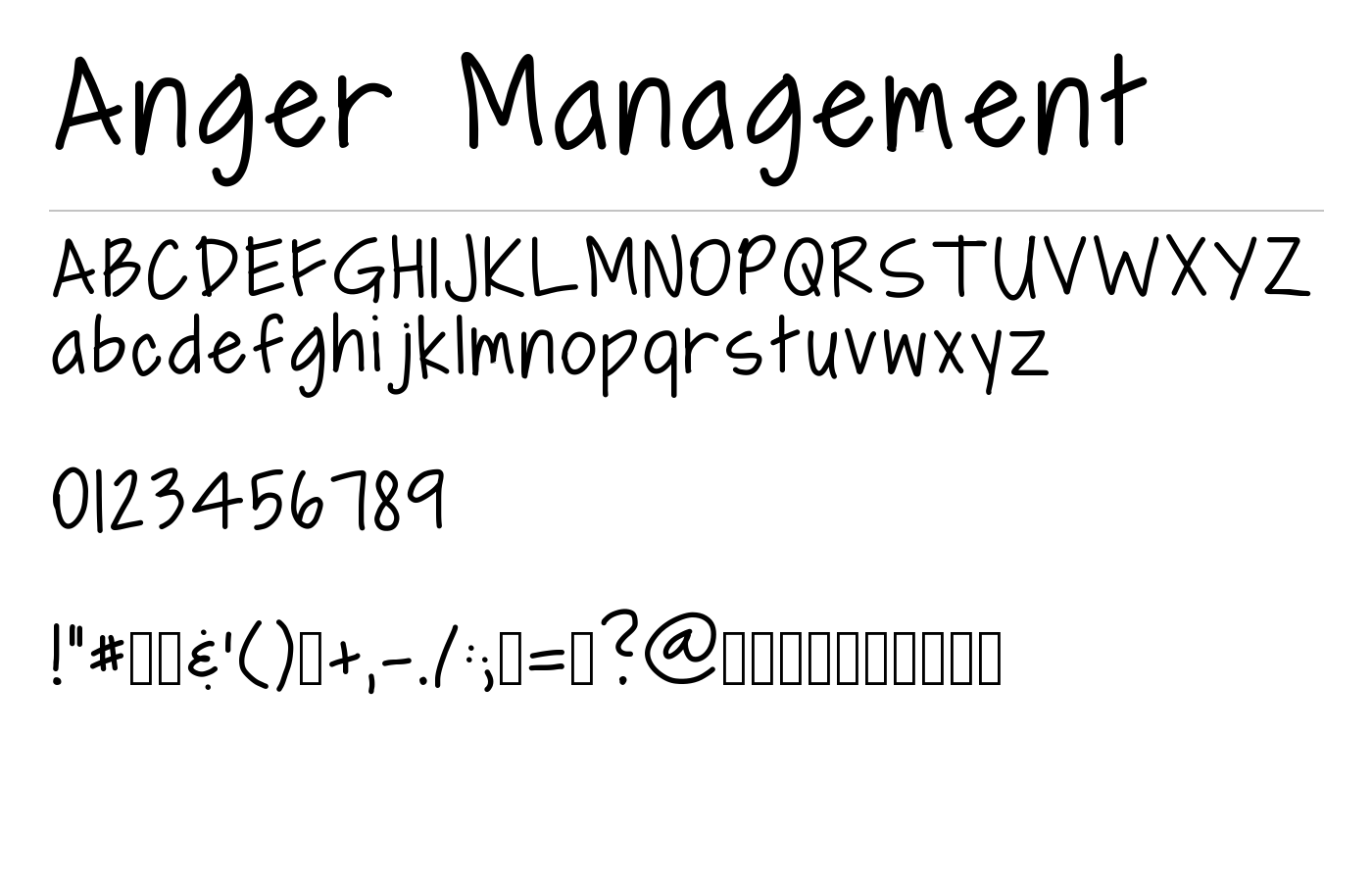
Anger Management is a casual, handwritten sans serif font that gives off a friendly and informal vibe. Its thin, slightly irregular strokes and tall x-height create a playful, approachable appearance, making it ideal for personal projects, creative branding, and any design that seeks a warm and human touch. This font works well for headlines, invitations, and social media content where a relaxed and genuine feel is desired.
Anger Management Font
About Anger Management Font